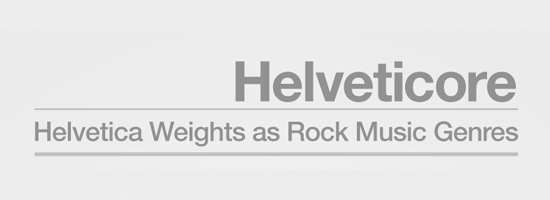
This fun infographic depicts Helvetica’s range of font weights as rock music genres. It has a dual purpose of serving as a witty cheatsheet for Helvetica font weights. Click to enlarge.
Helvetica Font Weights as Rock Music Genres (Infographic)